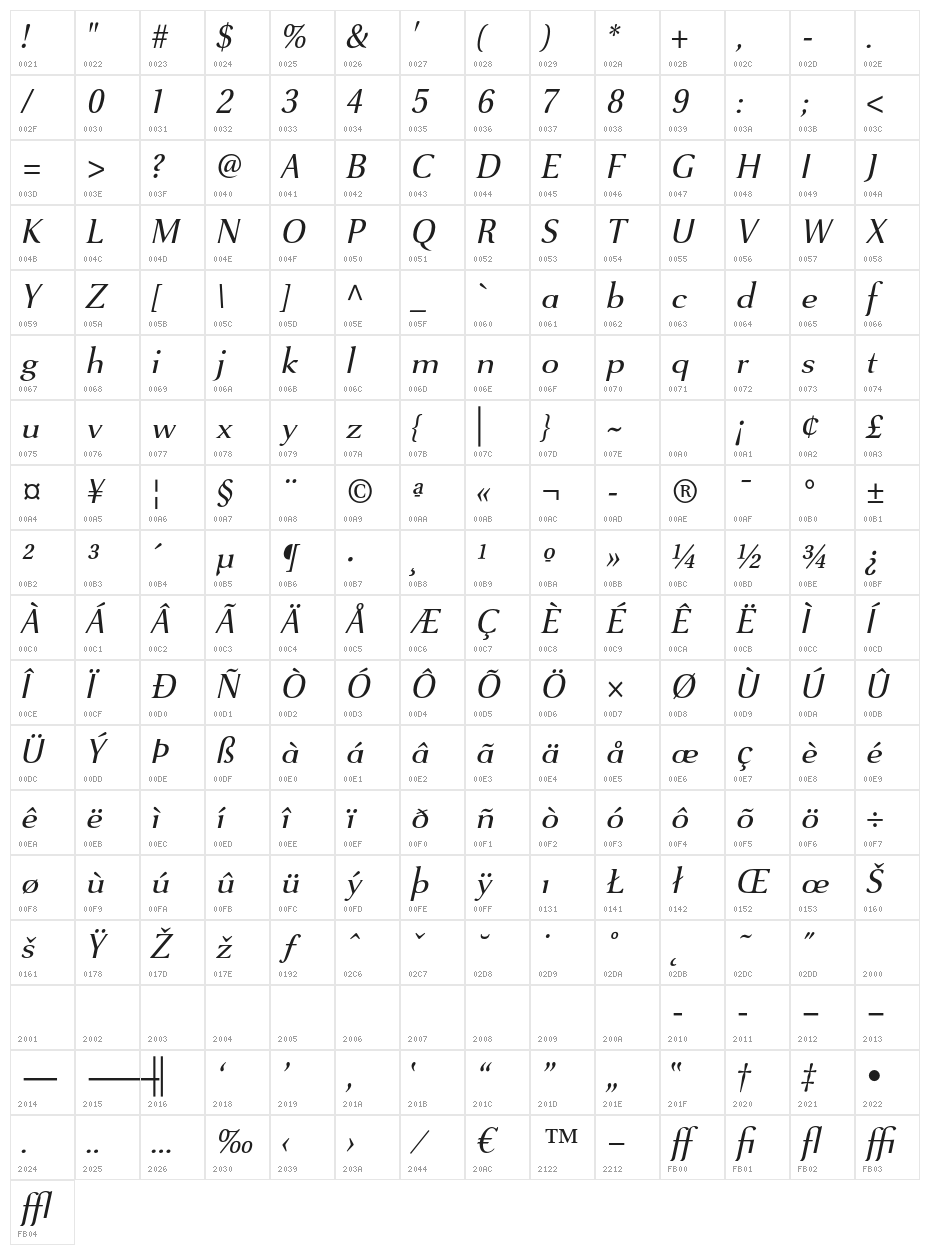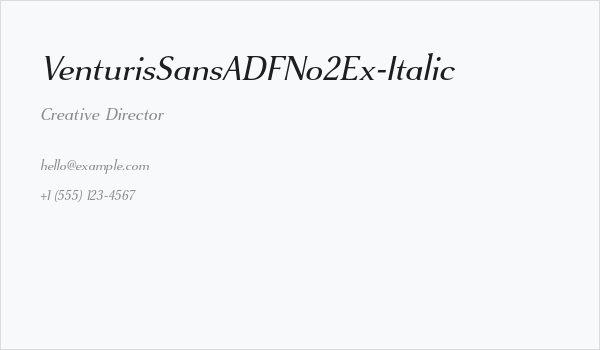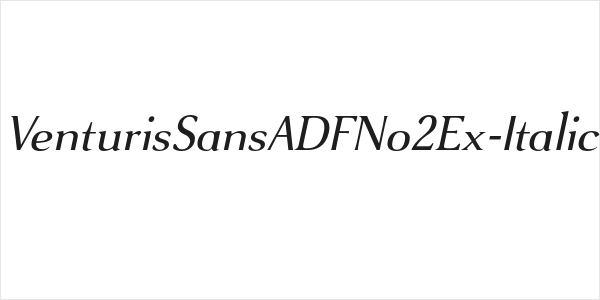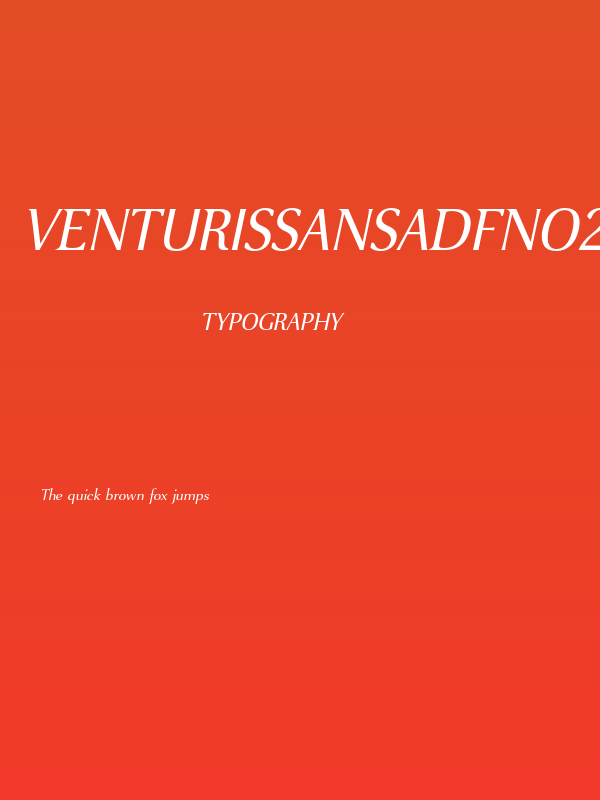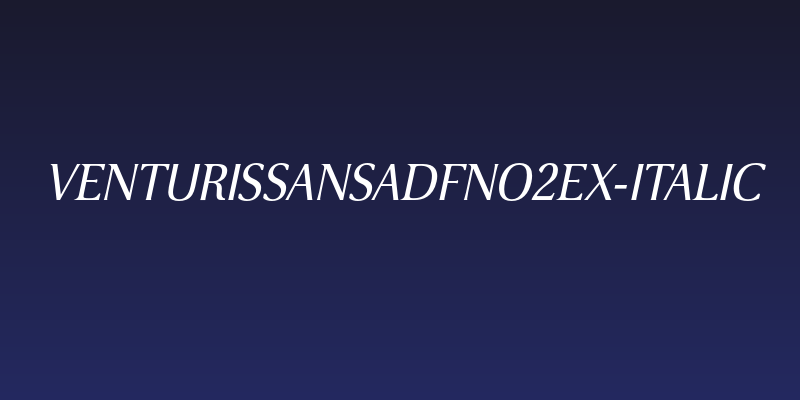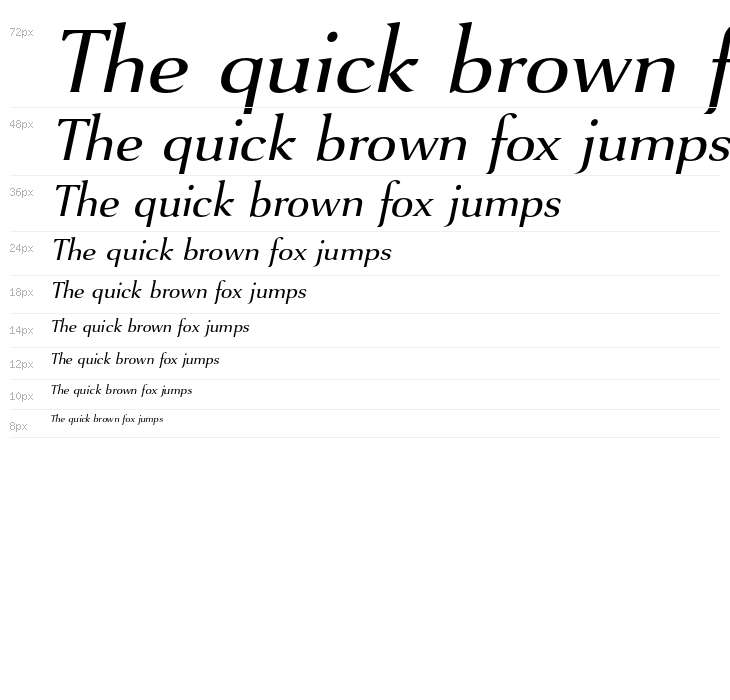
VenturisSansADFNo2Ex-Italic Font
VenturisSansADFNo2Ex-Italic Description
This font exhibits a classic and elegant italic style, characterized by its smooth and flowing letterforms. The slanted design adds a sense of motion and sophistication, making it suitable for formal and creative applications. The uppercase letters are tall and slightly condensed, while the lowercase letters maintain a consistent and harmonious flow. The numerals are clear and distinct, ensuring readability. Special characters are well-integrated, complementing the overall aesthetic. The font's balance between formality and creativity makes it versatile for various design needs.
| Proposed Projects | Ideal for wedding invitations, formal event programs, elegant branding, and artistic projects. |